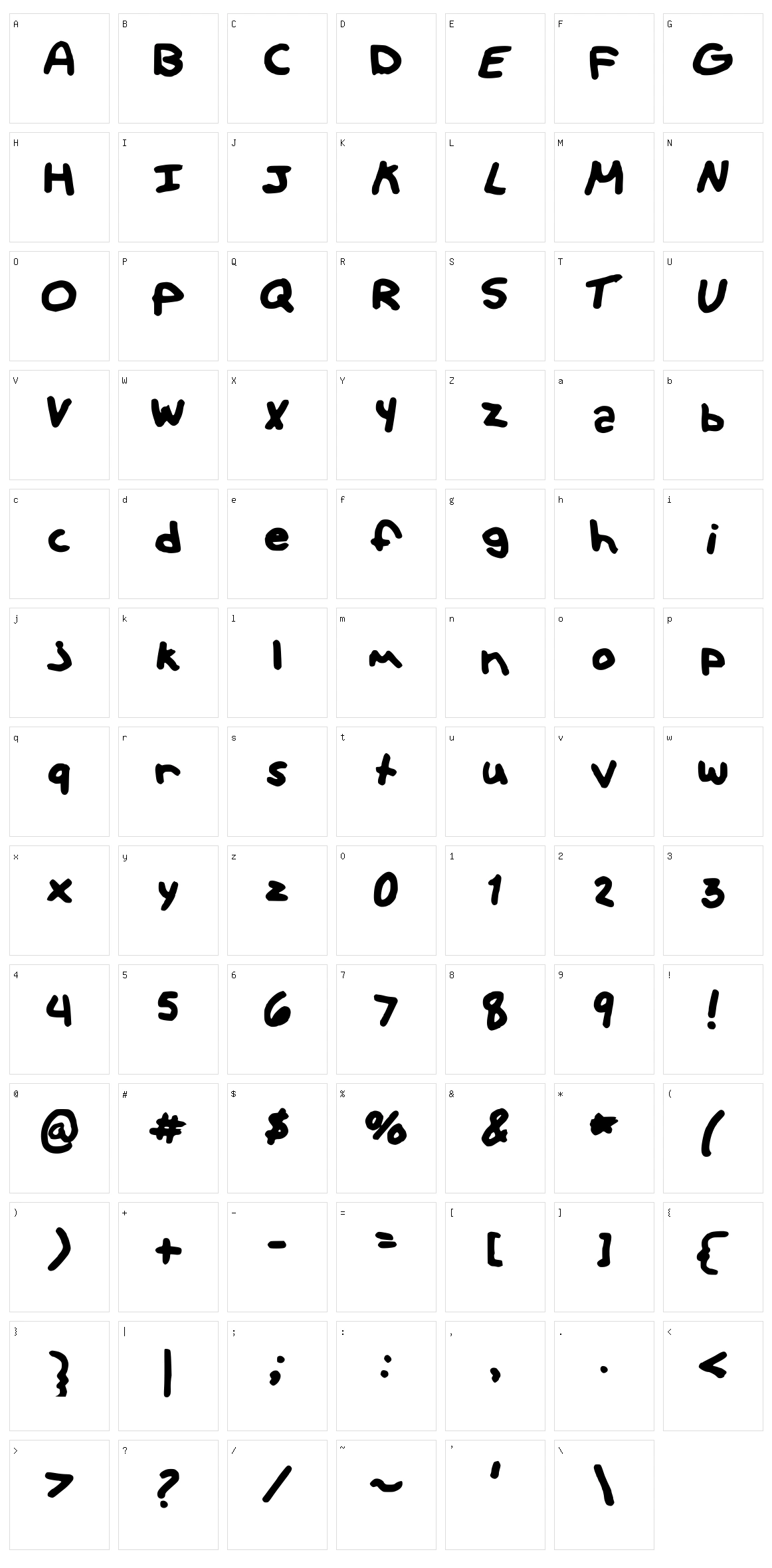
The free font Hipster is carefully designed by Georgia D, showcasing a thoughtful balance of creativity and usability and falls under the Script font style. When you download the ZIP file, it contains only 14.19 KB of font files, making it lightweight and quick to download. Please review the license details below to understand permitted usage and distribution rights. If license information is not available, we recommend using this font for personal projects only or contacting the author directly for commercial usage permissions.